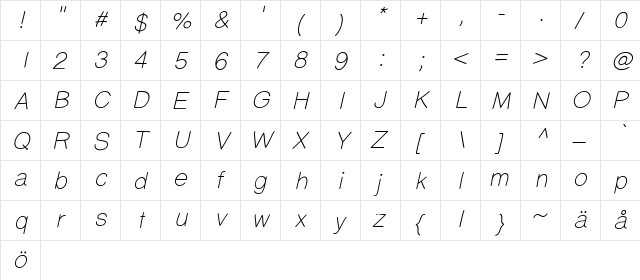
PrinsesstartaDEMO LightItalic Font Preview
Design Context for PrinsesstartaDEMO Typeface
PrinsesstartaDEMO offers clean, dependable letterforms without strong stylistic allegiance, making it a practical choice for designers who need flexibility. The slanted form adds forward momentum and visual energy. The delicate stroke weight brings airiness and refinement to layouts.
Pro Tip: Try PrinsesstartaDEMO for annotation and caption copy alongside an upright companion — the contrast in angle creates a dynamic but ordered typographic system.